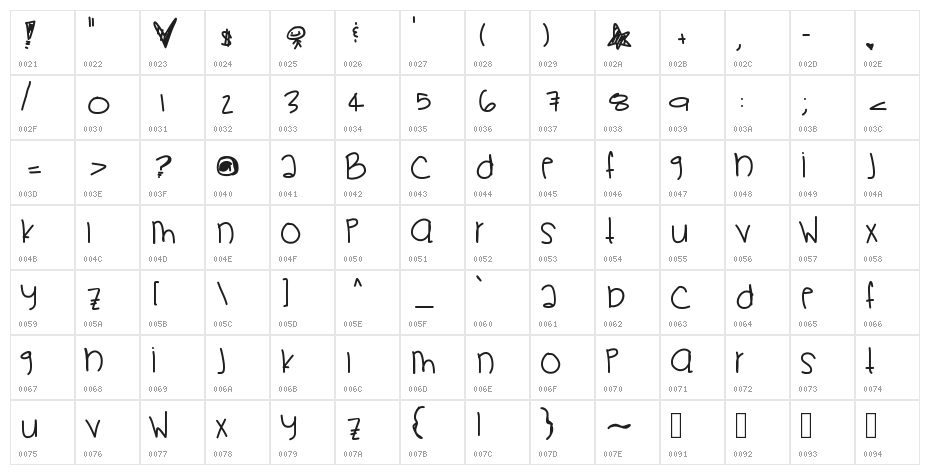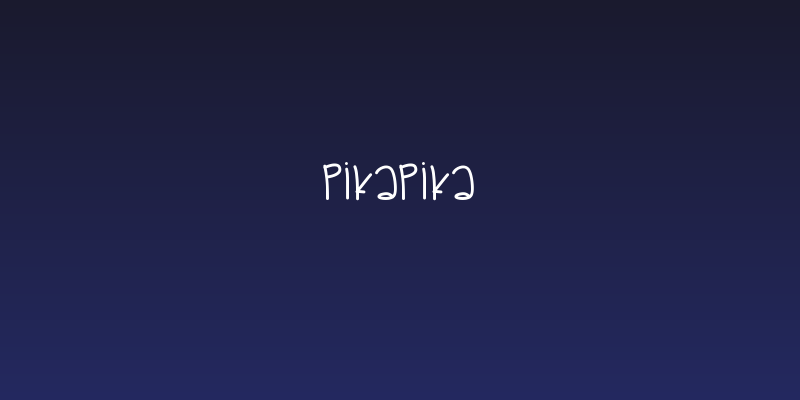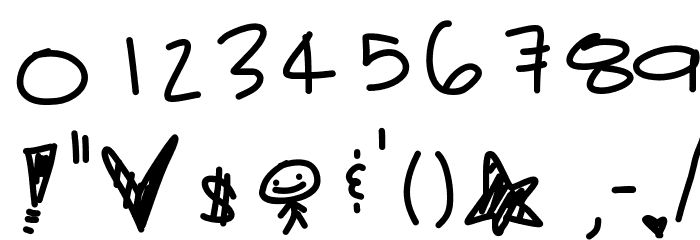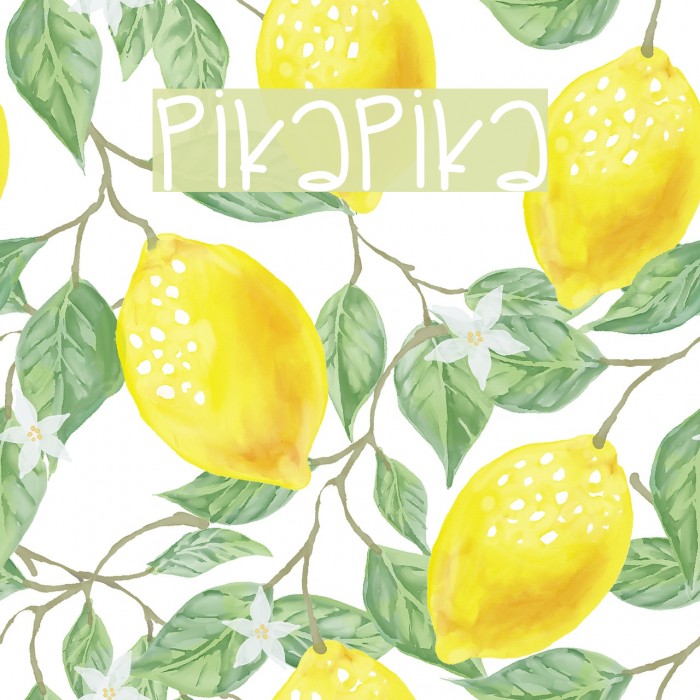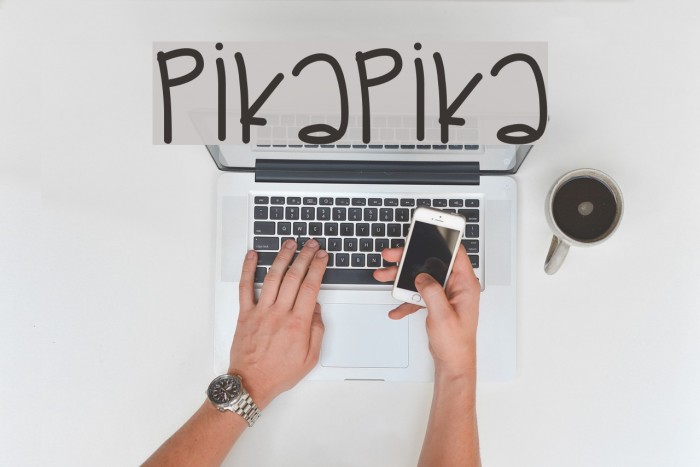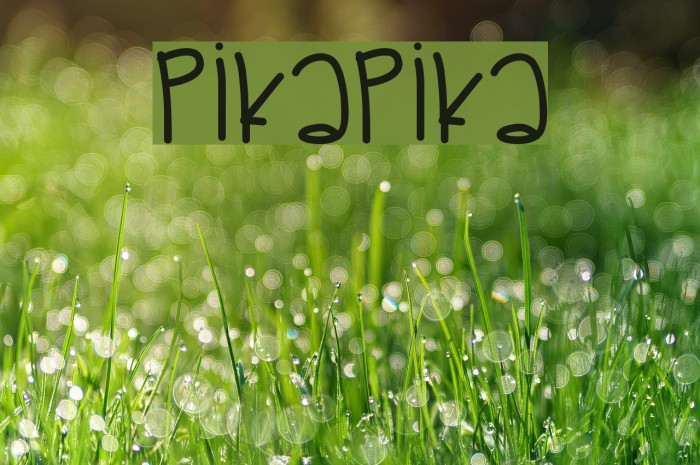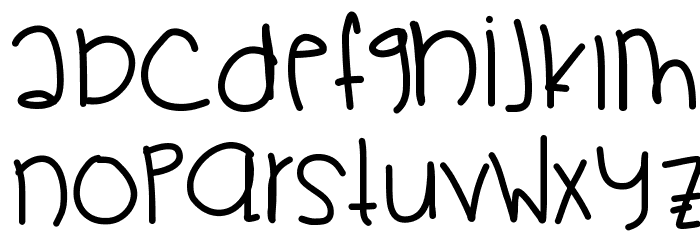
PikaPika Font
PikaPika Description
This playful and whimsical font features a handwritten style with a casual and friendly appearance. The characters are rounded and slightly irregular, giving it a charming and approachable feel. The uppercase and lowercase letters maintain a consistent style, with smooth curves and a relaxed structure. Numbers and special characters are designed to match the overall playful aesthetic, making it suitable for creative and informal projects. The font's unique personality makes it stand out, adding a touch of fun and creativity to any design.
| Overall Style | Playful |
| Use Case | Headlines, Logos, Informal text |
| Proposed Projects | Ideal for children's books, greeting cards, playful branding, and informal invitations. |